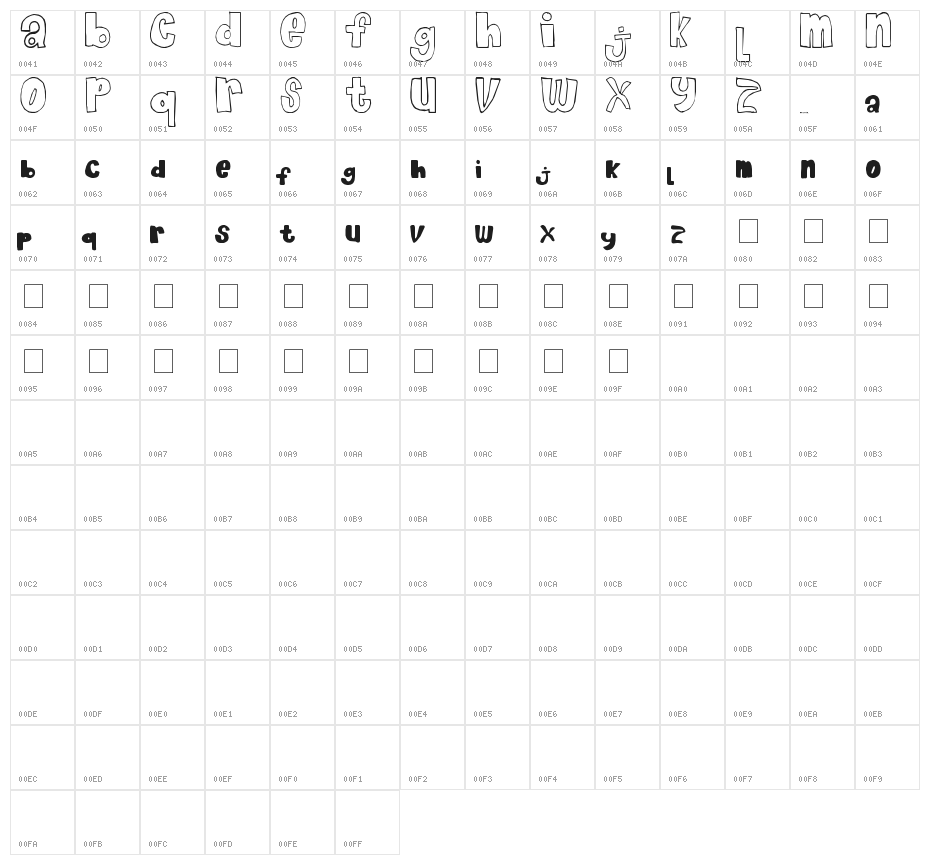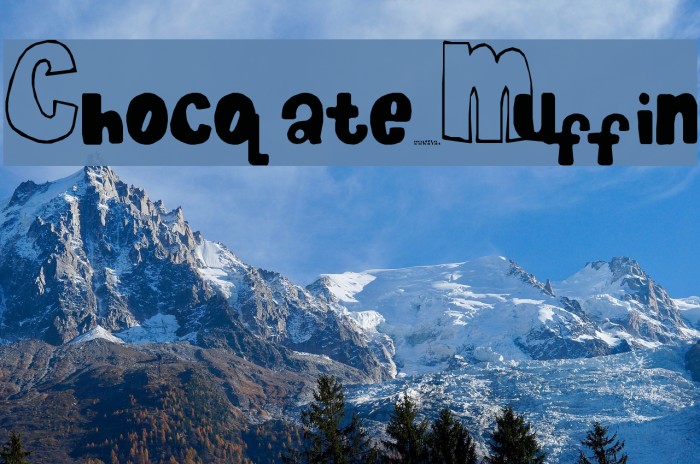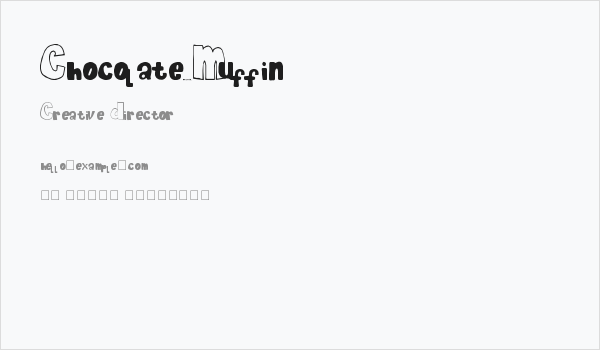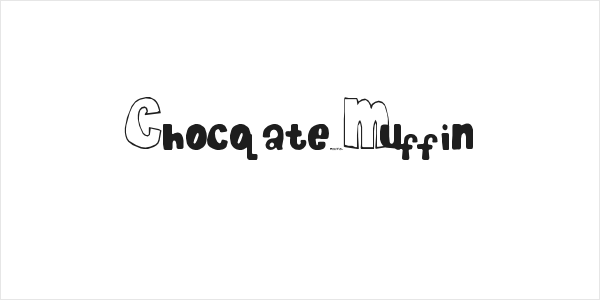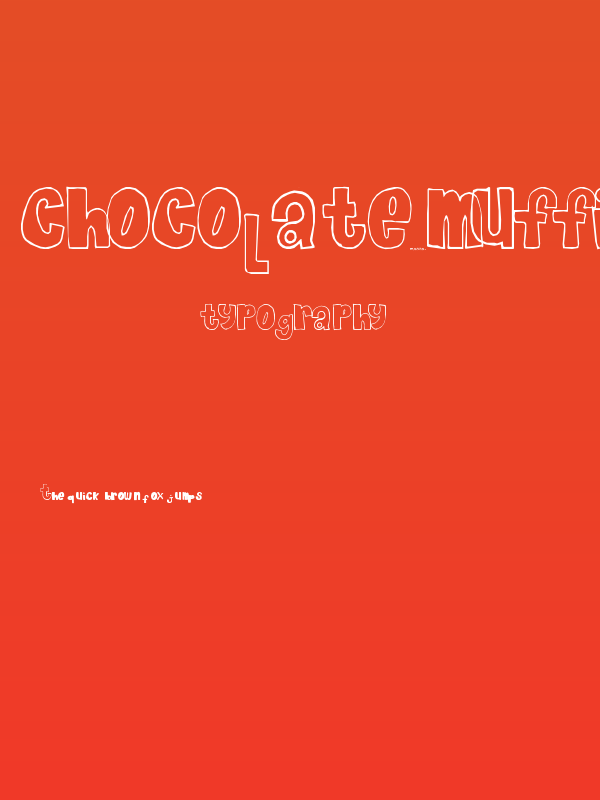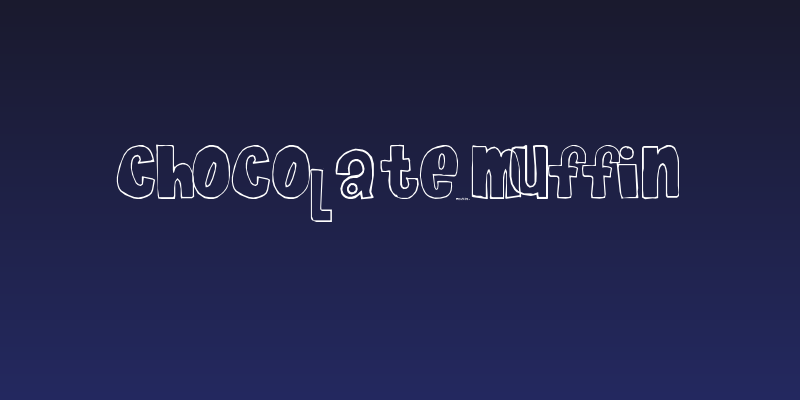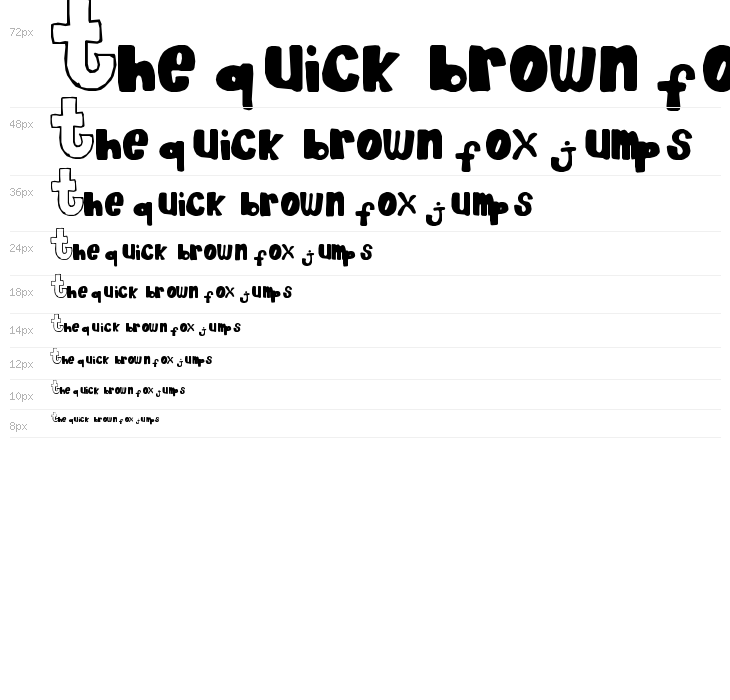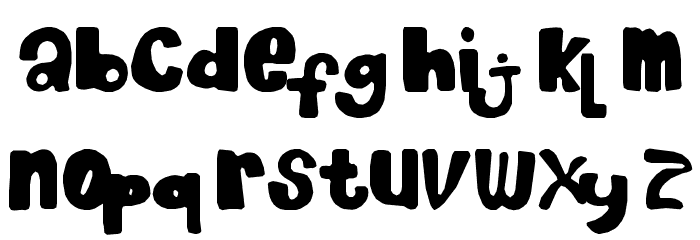
Chocolate_Muffin Font
Chocolate_Muffin Description
This playful and whimsical font features a bold, cartoon-like style with a hand-drawn appearance. The characters are rounded and slightly irregular, giving them a friendly and approachable feel. The uppercase and lowercase letters are distinct, with some letters having exaggerated curves and loops. The font's playful nature makes it ideal for projects that require a fun and informal touch. The bold strokes ensure readability, while the unique character shapes add personality and charm.
| Proposed Projects | Ideal for children's books, playful branding, party invitations, and comic strips. |